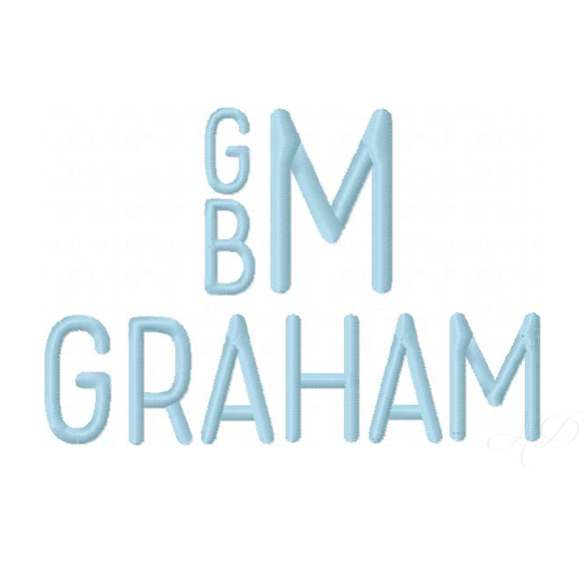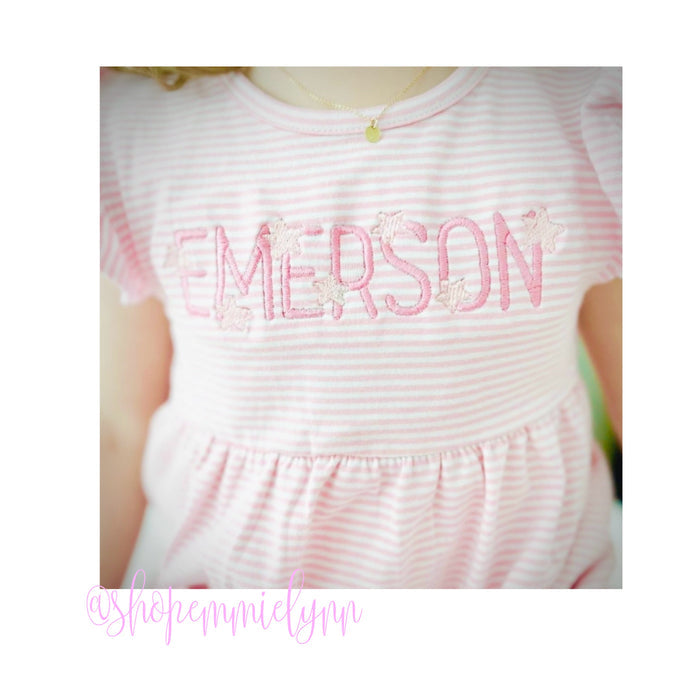
Graham Satin Embroidery Font
Looking to elevate your crafting game? The Graham Satin Embroidery Font is your go-to choice! This thick and bold font is perfect for high-pile items like towels, sweatshirts, and fleece, ensuring your designs stand out beautifully.